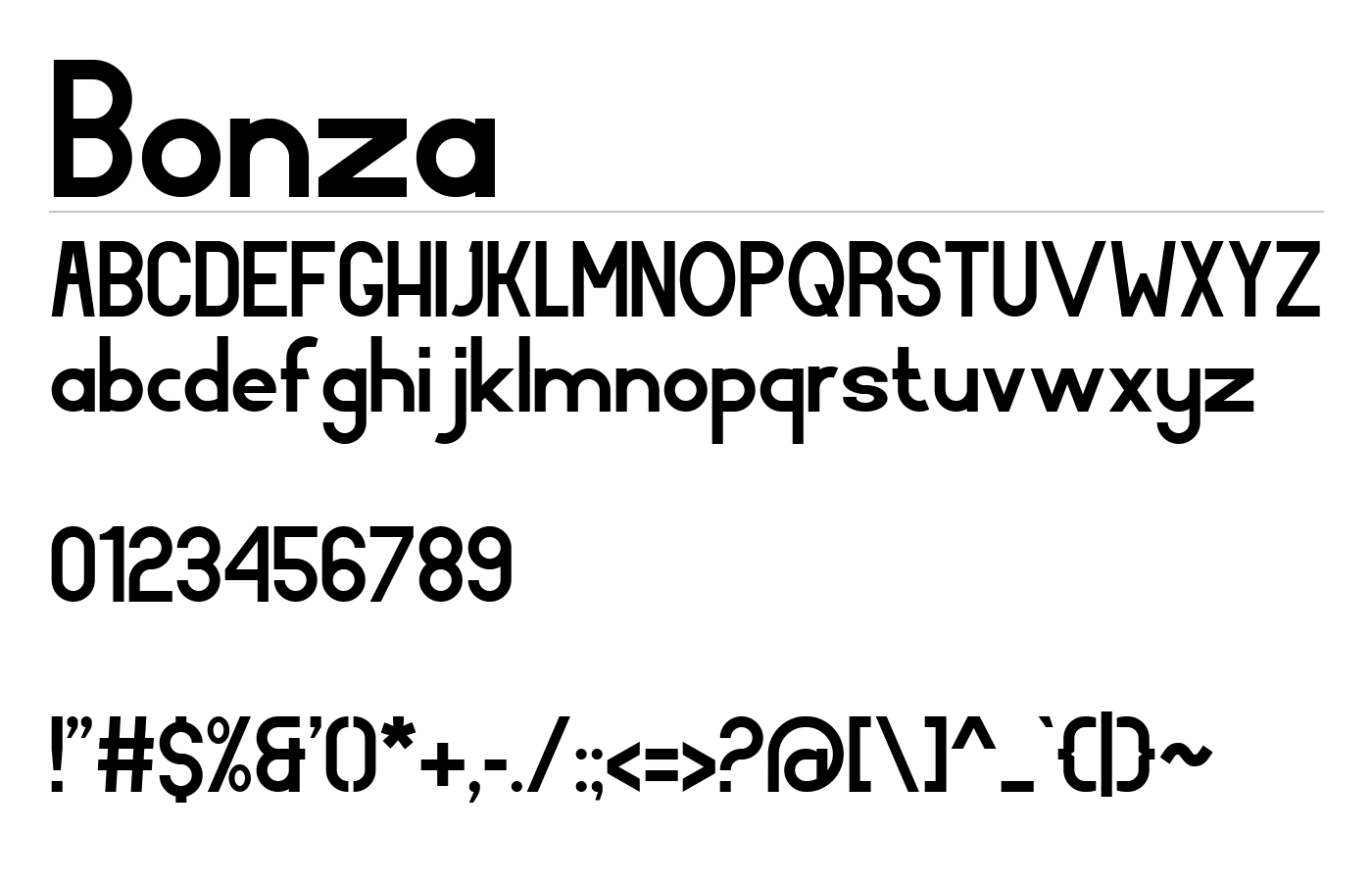
Bonza is a clean, modern sans-serif font with a bold, geometric style that combines strong, rounded lowercase forms with tall, narrow uppercase letters. Its high x-height and even stroke weight create a balanced, contemporary feel, making it ideal for eye-catching headlines, branding, and editorial design where clarity and a confident personality are key. This versatile typeface works well in both print and digital media, offering a fresh and approachable look for creative, professional projects.
Bonza Font
About Bonza Font